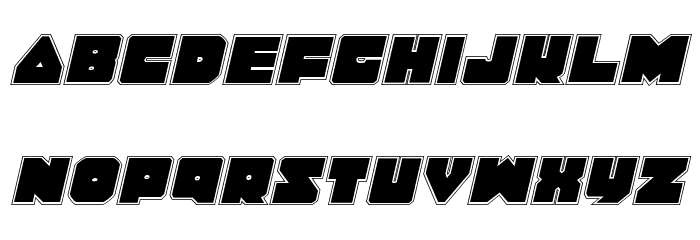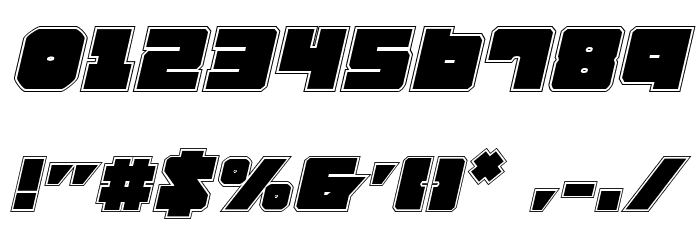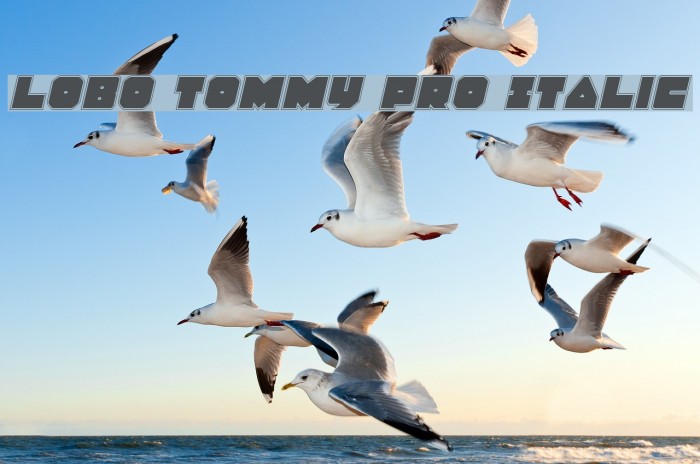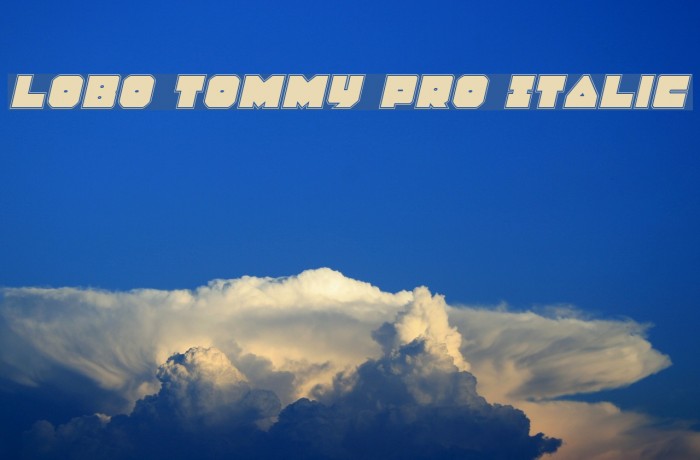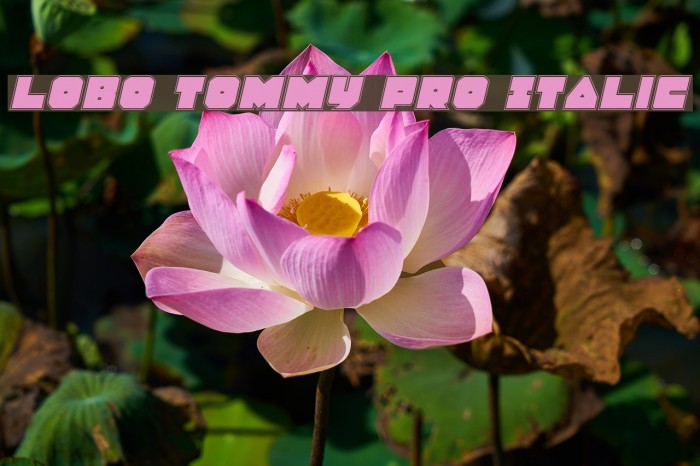
Lobo Tommy Pro Italic Font
This font features a bold, geometric design with a distinct italic slant, giving it a dynamic and modern appearance. The characters are blocky with sharp angles and a thick outline, creating a strong visual impact. The uppercase and lowercase letters maintain a consistent style, with the lowercase slightly smaller but equally bold. Numbers and special characters follow the same design principles, ensuring uniformity across all glyphs. The font's unique style makes it suitable for eye-catching designs where a strong, confident typeface is needed.
A bold, geometric italic font with a strong, modern presence.
- Proposed Projects: Ideal for sports branding, posters, video game titles, and any project requiring a bold, dynamic typeface.